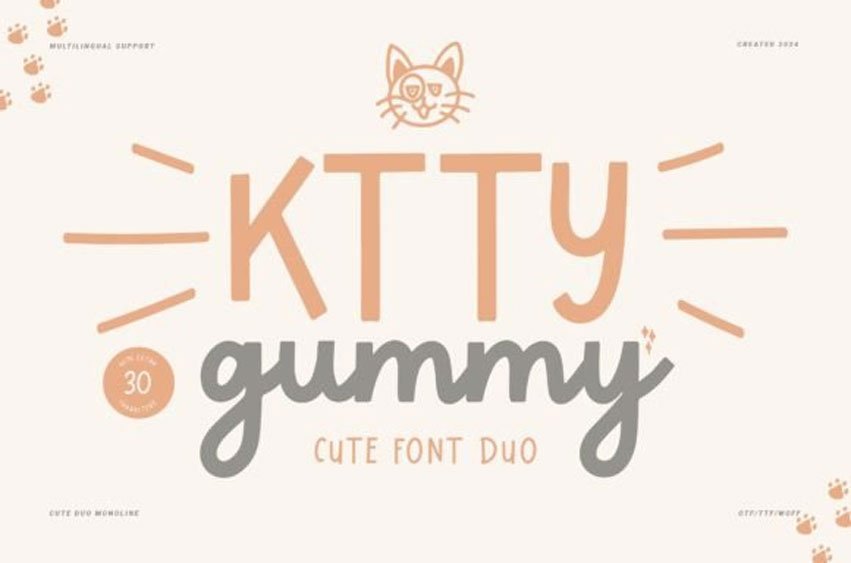
Ktty Gummy Font
Ktty Gummy Font is a sweet and friendly handwritten font. Its natural and unique style makes it incredibly fitting to a large pool of designs.
The only limit is your imagination.